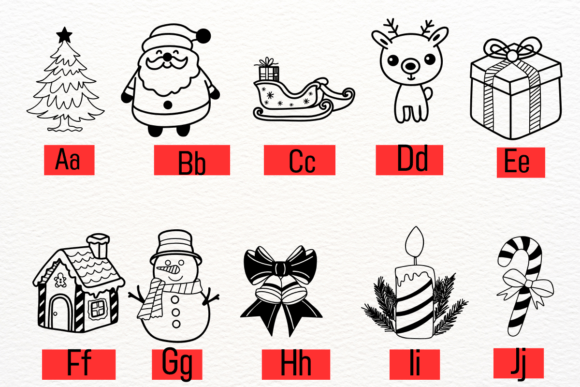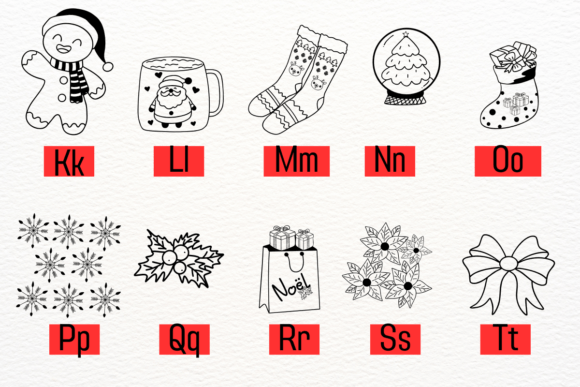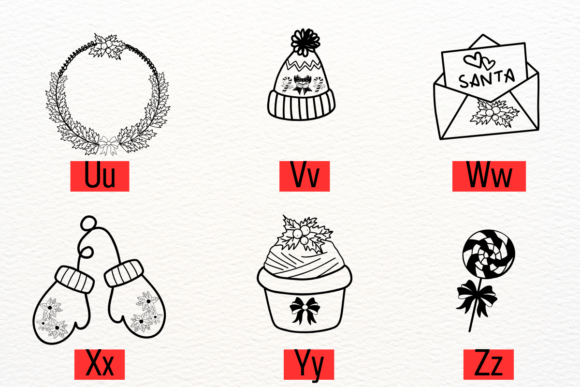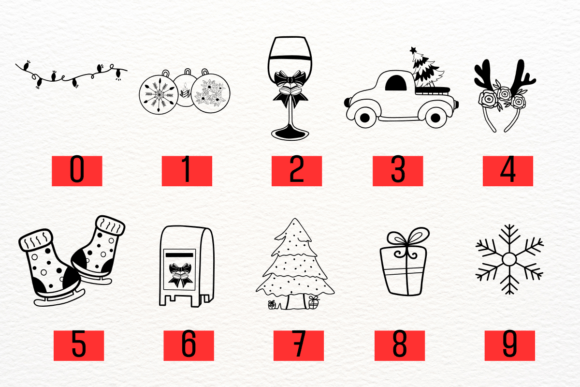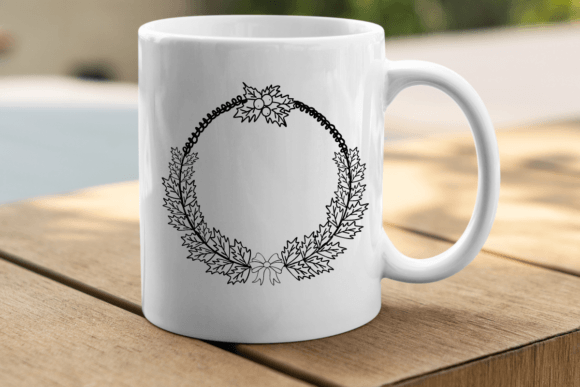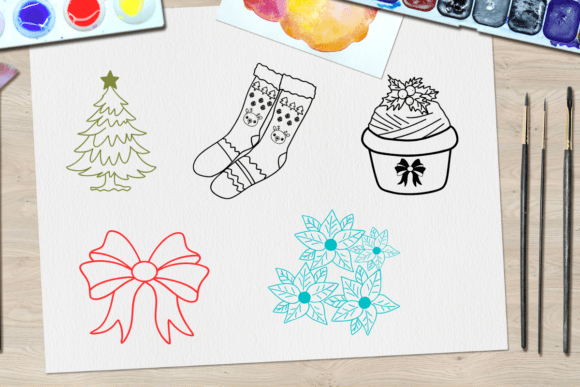
Introduction to Pretty Christmas Font
As the holiday season approaches, designers are often on the lookout for the perfect design elements to make their projects shine. For many, it’s the little details that bring a design to life – a sprinkle of festive flair that sets the tone for a joyful and magical celebration. Whether you’re crafting holiday cards, gift tags, or decorations, the right font can make all the difference. That’s where the Pretty Christmas Font comes in – a charming and festive collection of holiday-themed dingbats that will add a touch of Christmas magic to your designs.
With its whimsical and elegant style, the Pretty Christmas Font is a valuable resource for designers looking to elevate their creative projects. Its variety of delightful symbols, including Christmas trees, snowflakes, and ornaments, makes it the perfect addition to any holiday design. And, with a transparent background, you can easily incorporate these high-quality design elements into your work without worrying about distracting backgrounds.
Key Features of Pretty Christmas Font
- High-quality design resource ideal for creative projects, such as holiday greeting cards, gift tags, and festive invitations.
- Features a transparent background, making it easy to use with various backgrounds and designs.
- Includes a variety of festive characters and symbols, perfect for adding a touch of holiday cheer to any design.
- Designed at a high resolution of 300 DPI, ensuring crisp and clear typography in both digital and print projects.
- Perfect for designers looking for a unique and eye-catching font to elevate their creative project, such as a holiday-themed brochure or website.
Honest Review: Pretty Christmas Font
I recently had the chance to experiment with the Pretty Christmas Font for a creative project, and I must say it’s a delightful addition to any design. The font’s high quality and intricate details make it perfect for a festive theme.
- What works well: ✨ The font is incredibly versatile and can be used for both digital and print projects. The transparent background feature is also a great touch, making it easy to layer over other design elements.
- What works well: ✨ The font’s creative and playful feel makes it perfect for holiday-themed designs, from invitations to social media graphics.
However, there are a few limitations to consider: ⚠️ The font may not be suitable for all design styles, and the intricate details may be overwhelming for simpler projects. Additionally, the font may not be as widely supported on older systems or devices.
Overall, I’m impressed with the Pretty Christmas Font’s quality and versatility. While it may have some limitations, it’s a great resource for designers looking to add some festive flair to their projects.
The Pretty Christmas Font is ideal for holiday-themed designs, including Christmas cards, gift tags, and party invitations. You can also use it to create social media graphics, blog posts, and other digital content.